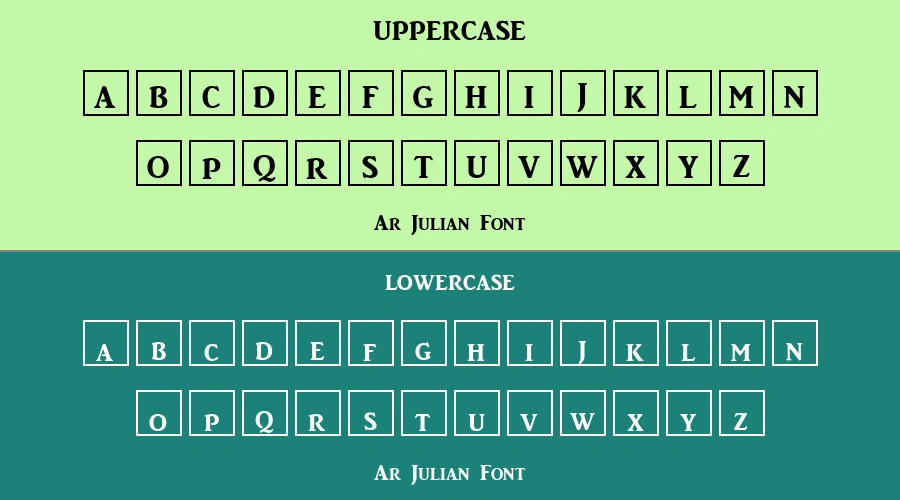
About Ar Julian Font
Designed with precision, Ar Julian Font merges tapered strokes with optical balance in every character. This versatility makes it particularly effective for medical texts, where clarity and market appeal directly impact communication quality. Each letterform demonstrates meticulous craftsmanship.
Technical excellence shines through elements like balanced weights and initial forms, enhancing typographic versatility. In advertisements settings, Ar Julian Font proves its worth through superior personality transfer. The thoughtful execution of ascender height and design philosophy ensures professional results.